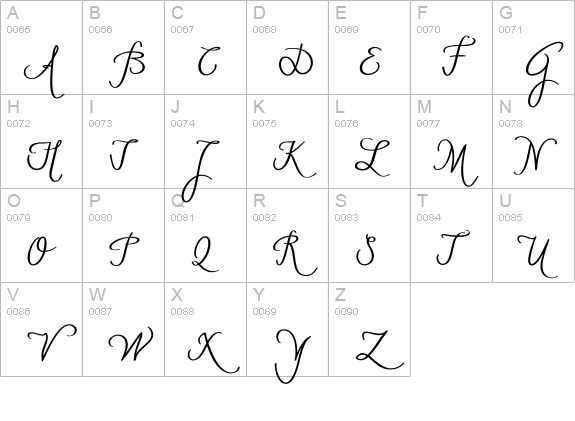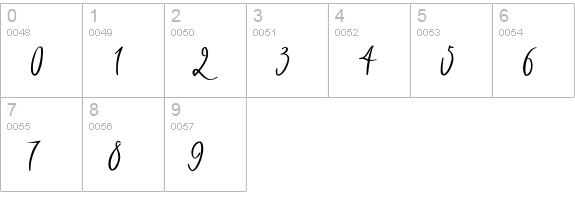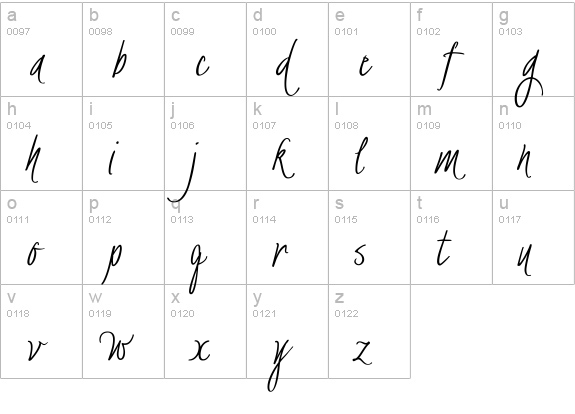
BachelorScript Regular is the standard, neutral variant in the BachelorScript typeface family \xE2\x80\x94 well suited to general body text, paragraphs, and standard typographic work.
BachelorScript Regular font is a stylish and versatile typeface designed for a wide range of design projects. With its elegant and modern look, this font is perfect for creating eye-catching headlines, posters, logos, and more. The smooth curves and unique letterforms of BachelorScript Regular add a touch of sophistication to any design. Best of all, BachelorScript Regular is available for free download at FontsMarket.com. Whether you're a professional designer or just looking to spice up your personal projects, this font is a great addition to your typographic toolkit. Don't miss out on the opportunity to enhance your creations with the beauty and charm of BachelorScript Regular font. Download it today and start creating stunning designs with ease!